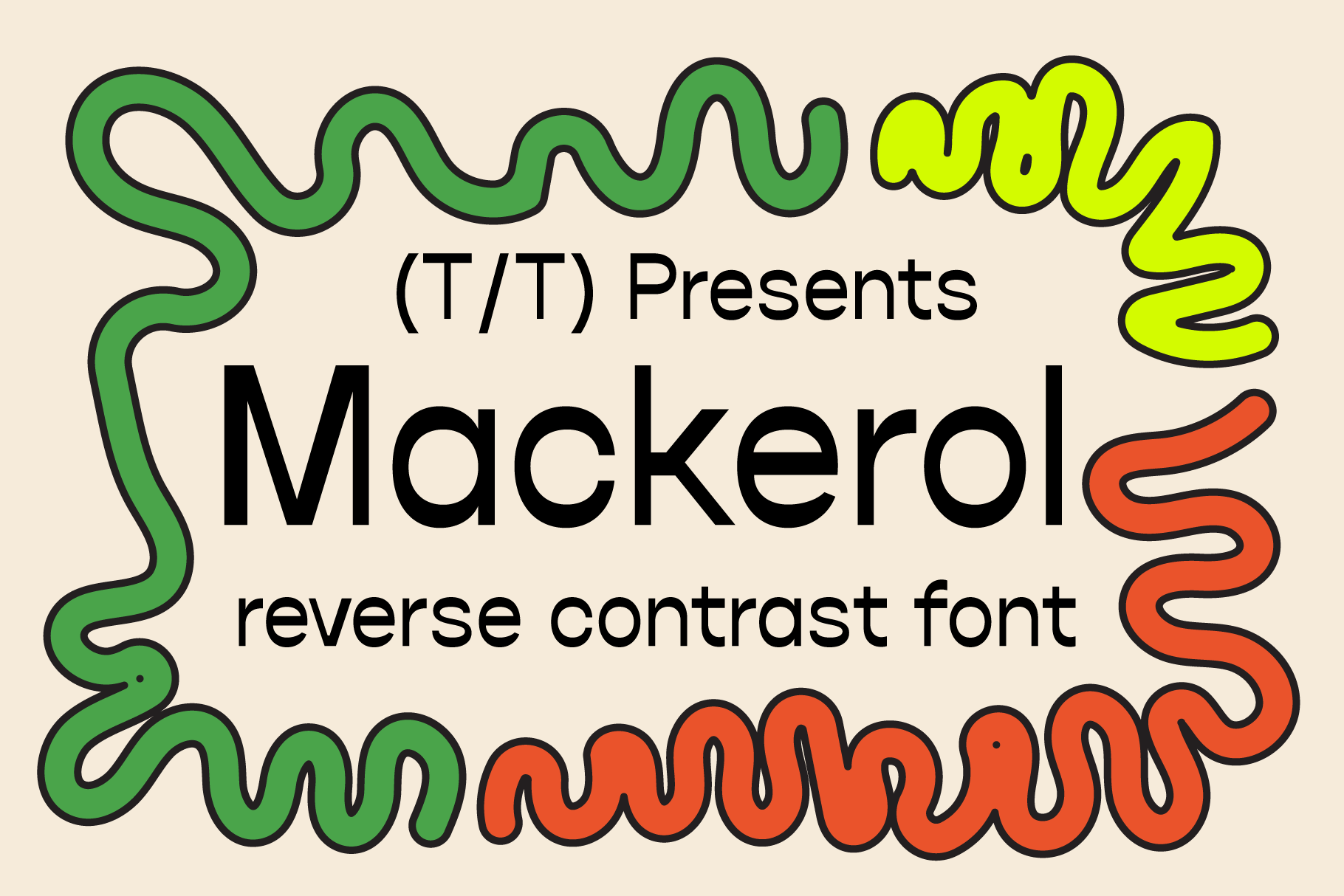
Reverse Contrast font: Mackerel
Mackerol is a reverse contrast font that is built for titles, display, headlines, and long text. Mackerel is a modern take on a quirky font style that will add a bit of a playful personality to your design. If you are working on branding, logos, magazines, instagram, posters or whatever Mackerol is your guy if you are wanting to get that fun cool payed back personality right.